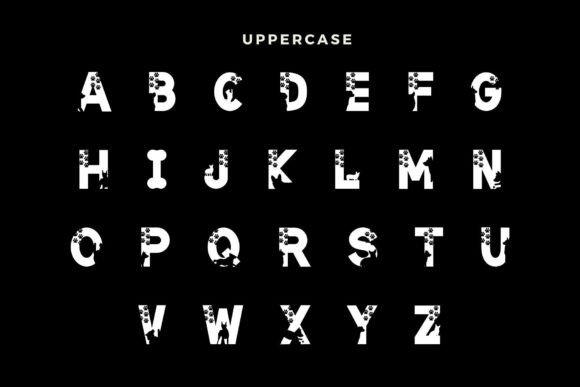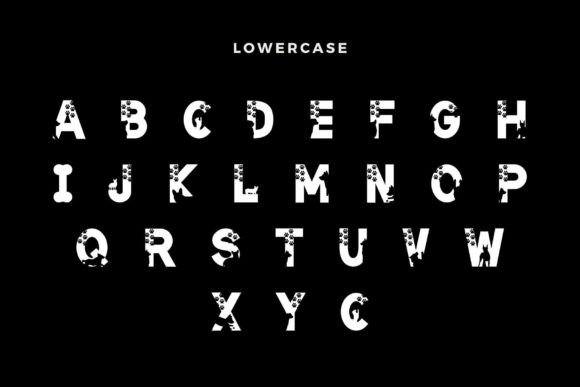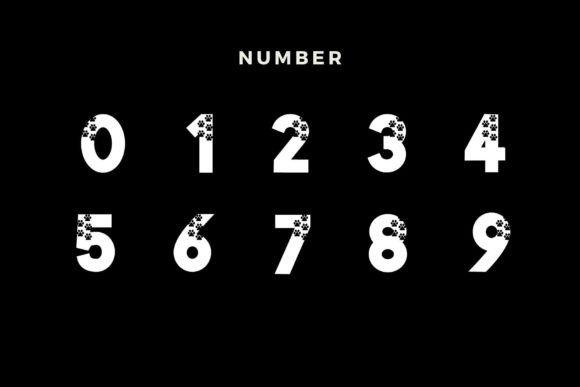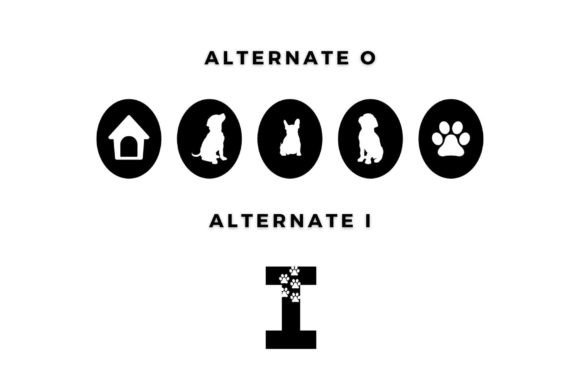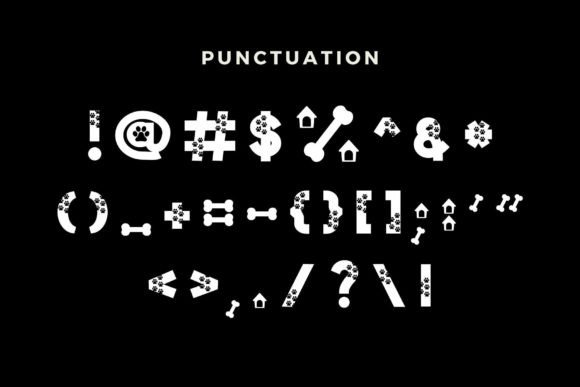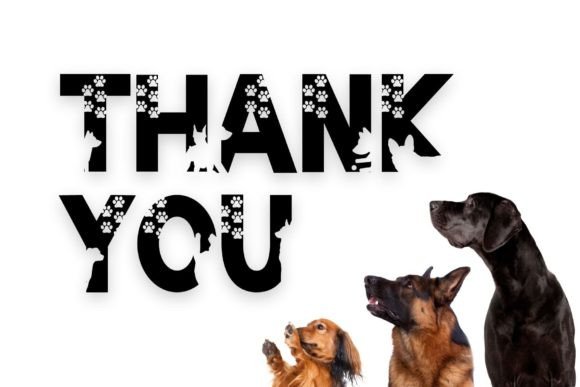
Introducing Boom Doggie Font: The Ultimate Decorative Font for Creative Projects
Are you tired of using the same old fonts for your creative projects? Look no further! Boom Doggie Font is here to add a touch of playfulness and authenticity to your designs. This cute and fun decorative font is perfect for a wide range of projects, from blog posts and logos to branding, ads, invitations, greeting cards, planners, photo albums, decorations, and more.
What Makes Boom Doggie Font Special?
Boom Doggie Font is designed to bring a sense of fun and excitement to your designs. Its unique and playful style makes it stand out from other fonts, and its versatility ensures that it can be used in a variety of contexts. Whether you’re a designer, crafter, or DIY enthusiast, Boom Doggie Font is the perfect choice for adding a personal touch to your projects.
Uses for Boom Doggie Font
Boom Doggie Font is a versatile font that can be used in a wide range of creative projects, including:
- Blog Posts: Add a touch of personality to your blog posts with Boom Doggie Font. Use it for headings, titles, or even entire paragraphs to make your content stand out.
- Logos and Branding: Create a unique and memorable logo for your business or brand with Boom Doggie Font. Its playful style makes it perfect for businesses that want to convey a sense of fun and approachability.
- Ads and Marketing Materials: Use Boom Doggie Font to create eye-catching ads and marketing materials that grab attention and leave a lasting impression.
- Invitations and Greeting Cards: Add a personal touch to your invitations and greeting cards with Boom Doggie Font. Its playful style makes it perfect for special occasions like birthdays, weddings, and holidays.
- Planners and Organizers: Use Boom Doggie Font to create fun and functional planners and organizers that help you stay on top of your tasks and appointments.
- Photo Albums and Scrapbooking: Add a touch of personality to your photo albums and scrapbooking projects with Boom Doggie Font. Use it to create captions, titles, and other text elements that make your projects stand out.
- Decorations: Use Boom Doggie Font to create fun and playful decorations for your home or office. From wall art to DIY projects, this font is perfect for adding a personal touch to your decor.
Why Choose Boom Doggie Font?
There are many reasons why Boom Doggie Font is the perfect choice for your creative projects. Here are just a few:
- Playfulness: Boom Doggie Font embodies playfulness and fun, making it perfect for projects that require a lighthearted touch.
- Authenticity: This font is designed to be authentic and genuine, making it perfect for projects that require a personal touch.
- Versatility: Boom Doggie Font can be used in a wide range of creative projects, from digital designs to handmade crafts.